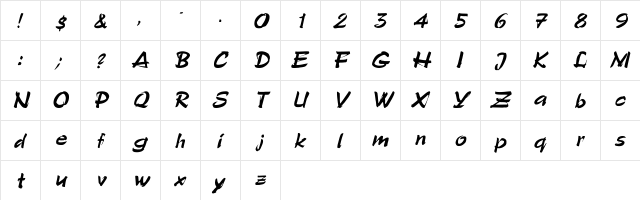
Polo-SemiScript Italic Italic
Design Context for Polo-SemiScript Italic Typeface
Polo-SemiScript Italic flows with the natural rhythm of handwritten lettering, making it ideal for designs that call for warmth and personal expression.
Font Pairing: Combine Polo-SemiScript Italic with a simple geometric sans for maximum contrast — the tension between flowing curves and clean structure is a classic typographic pairing.
Pro Tip: Use Polo-SemiScript Italic for short runs of text — names, titles, or taglines. Extended body copy in script faces tires the eye quickly.